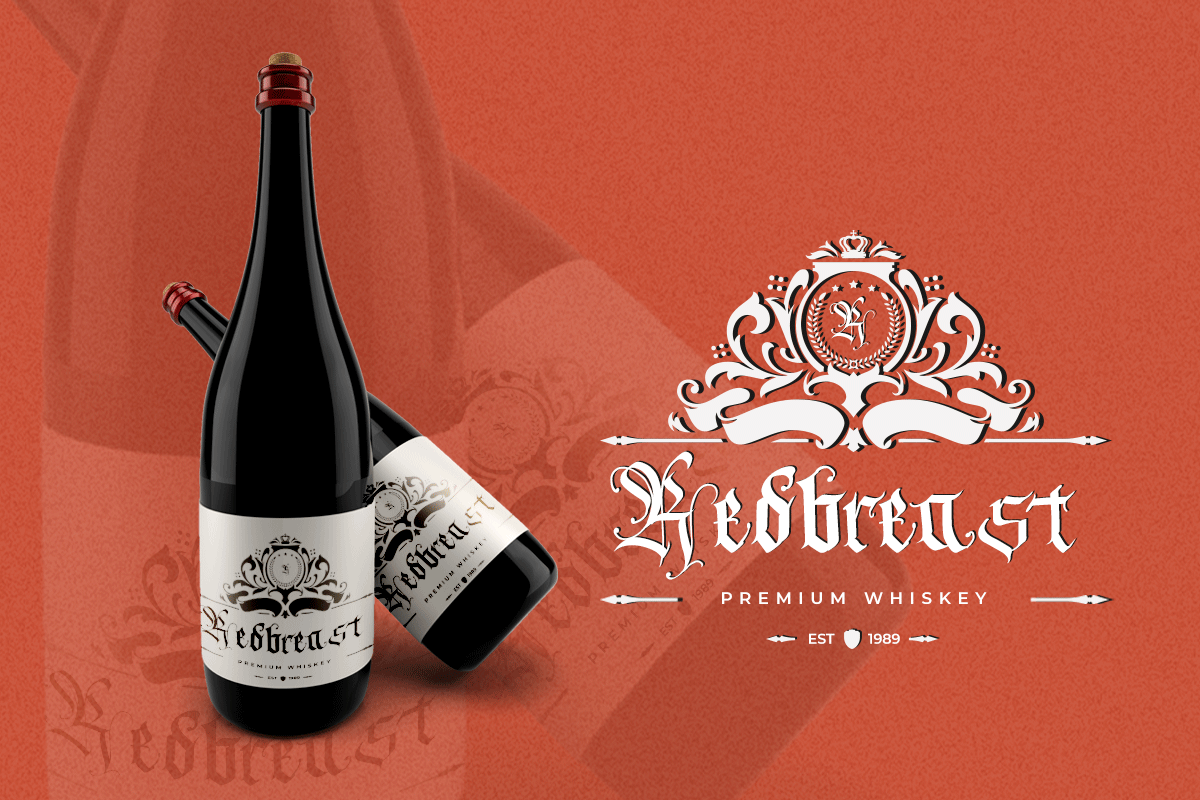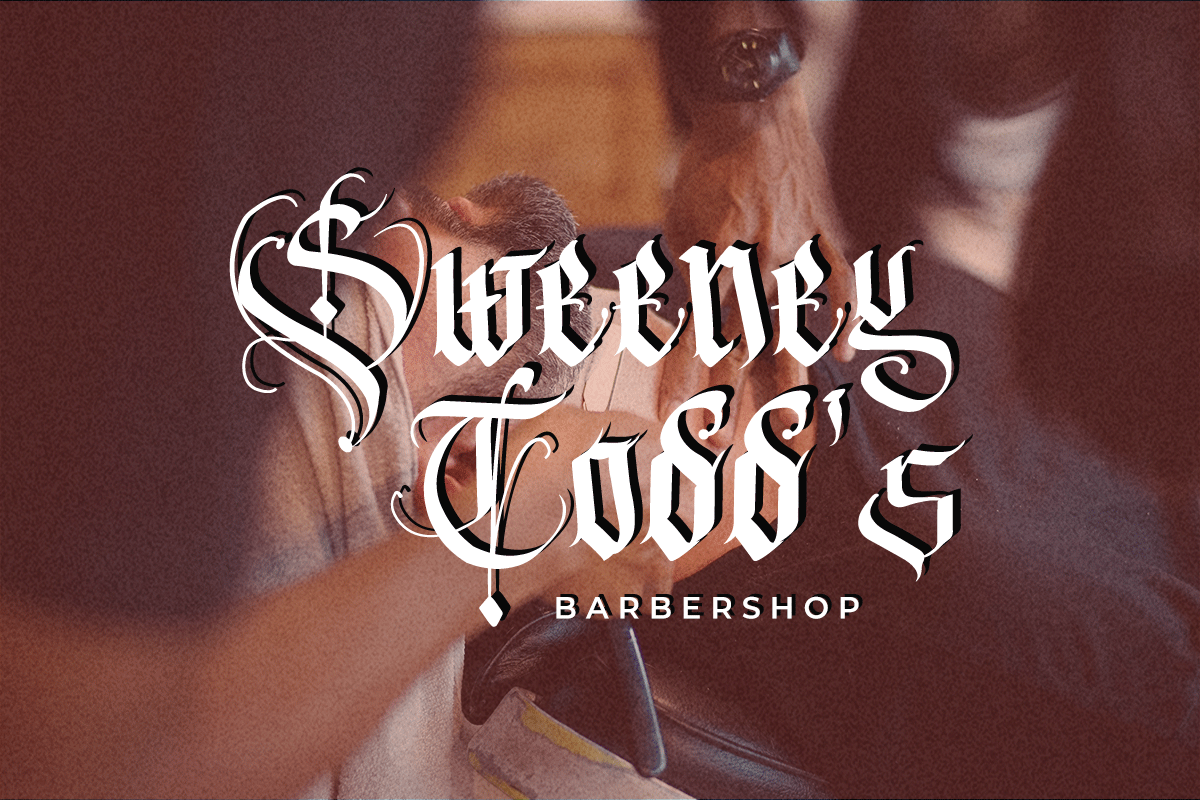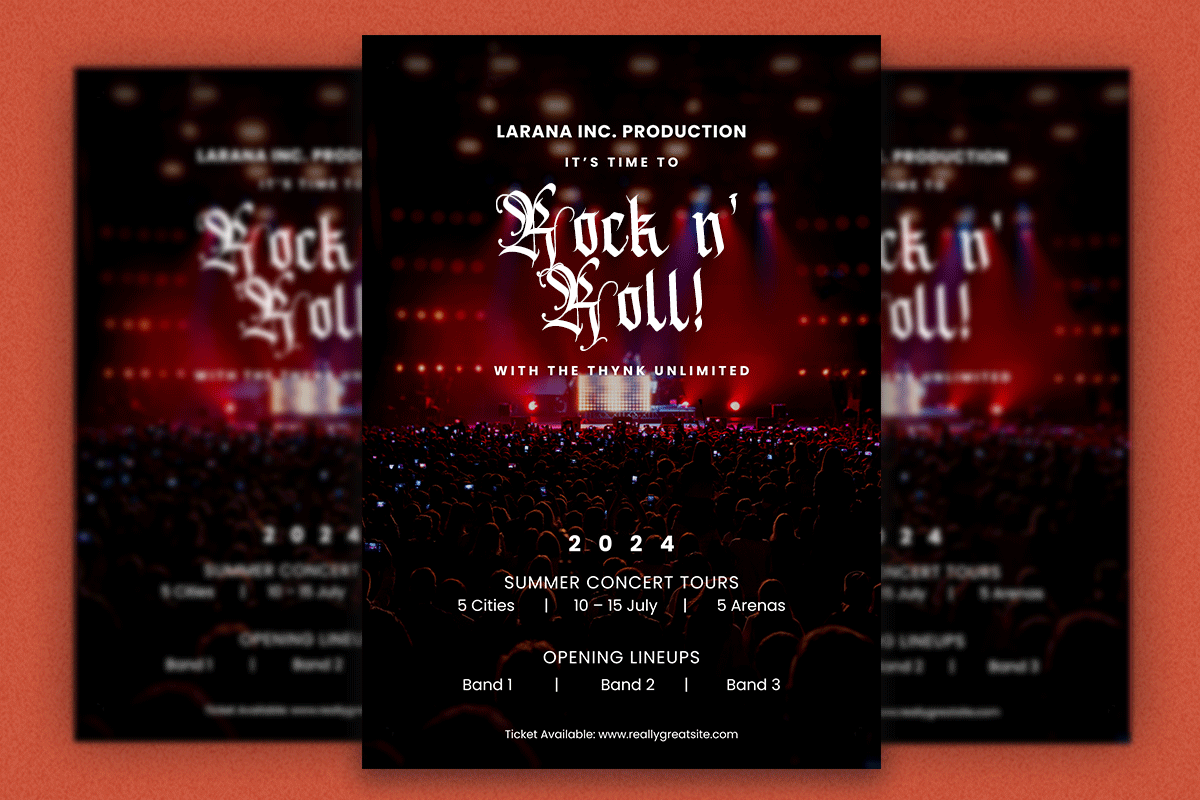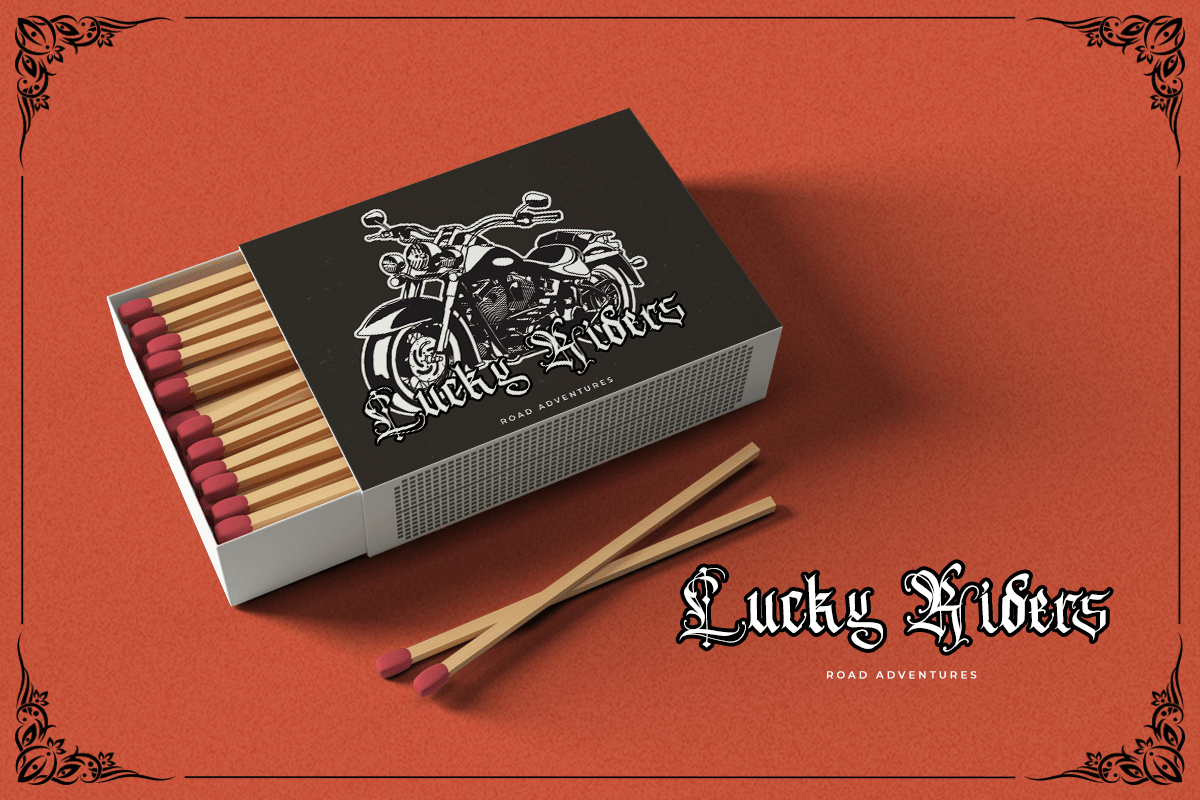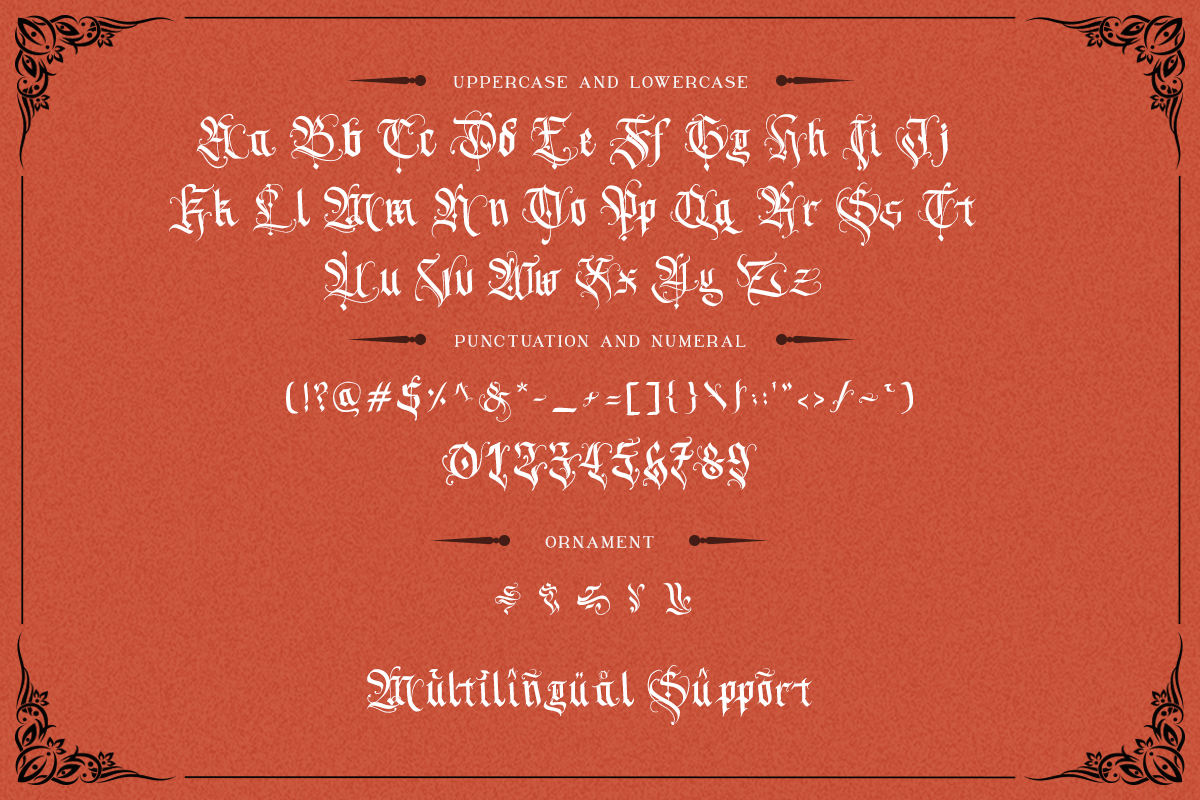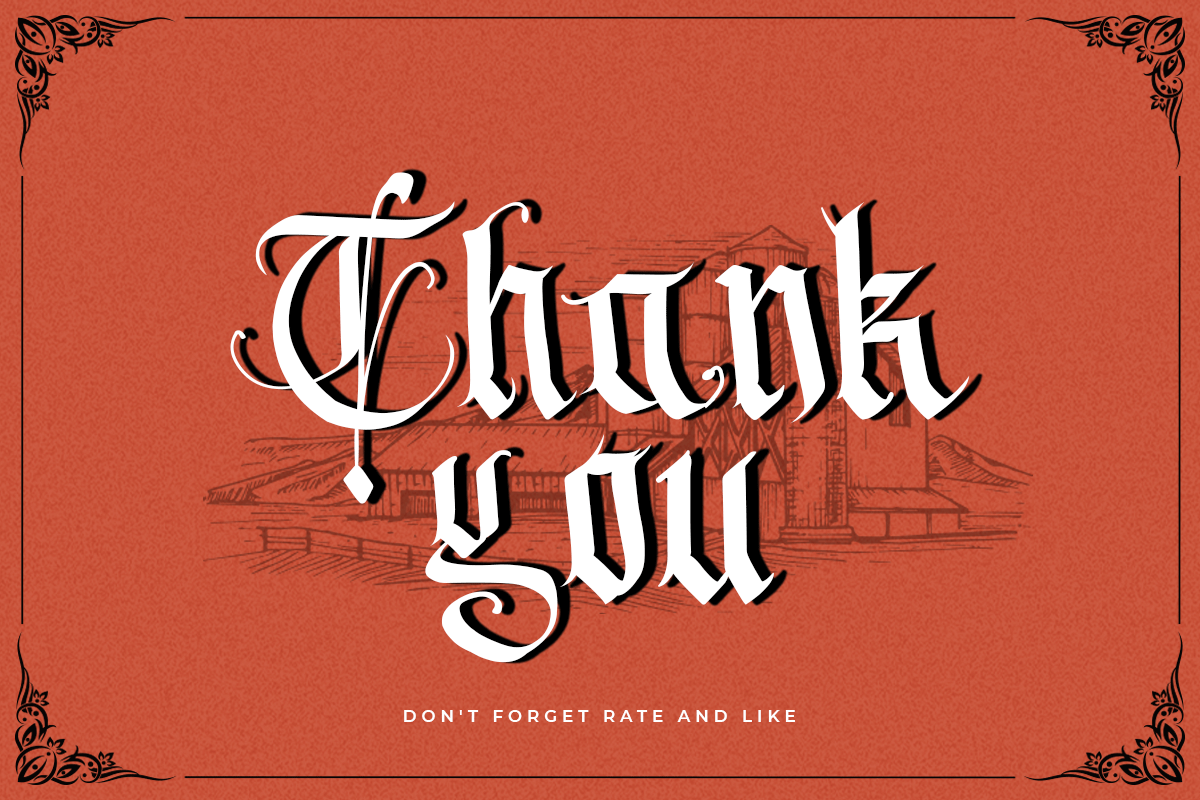
Blackhorse Blackletter Font After making many typefaces, Font Kong is back with a new type of font called Blackhorse Blackletter font. Judging from all sides, such as the shape and impression it causes, this font is part of the Blackletter modern font. This font is made with inspiration from Middle East calligraphy art. Blackhorse Blackletter Font is here to bring a new color to the world of blackletter. Blackhorse Blackletter Font was made to add a wide selection of ready online fonts to use digitally and in print. Blackhorse Blackletter Font has a shape that shows that it is part of the Middle Eastern Blackletter, which was inspired just by looking at it. If you pay close attention, you can feel the significant influence of Middle Eastern calligraphy art in the form of this font. Blackhorse Blackletter Font has overall characteristics where the font is made from many sharp, thick, and thin lines. This font is branching with curved lines and small circles at the end. All design elements create a symbolic structure and meaning instead of a representation of naturalistic ideas. From this explanation, we can understand that this font is not only part of the Font Blackletter family but is also included in the display and decorative font category. Blackhorse Blackletter font is not designed for use in large text or with large font sizes. Because seeing its quite complicated shape, it includes an eligible font. Apart from how easy/difficult the font is to read, we can imagine how this font matches various equipment. Blackhorse Blackletter font is one of the best fonts for use on frightening products and mystery themes. This font also functions when used to create a horror movie poster, and a horror-themed party or used on behalf of several metal bands and their album cover. Not only that, but the Blackhorse Blackletter font can also be combined as its trademarks, such as T-shirts, jackets, and denim pants. Blackhorse Blackletter Fonts are fonts that are also suitable for product branding. This font can use as a product brand and product ad. A chaotic form of fonts demands readers to pay attention and extra focus at this time. However, this chaotic energy is the characteristic and identity of this artistic font. When typed in dark colors, this font creates a stunning gothic atmosphere. Seeing the compatibilities of the font, it is hoped that the presence of the Blackhorse Blackletter font can answer your confusion to have the most appropriate fonts. For your social media needs, you can use and install fonts in our font Blackletter collection to be used as Instagram fonts, Facebook fonts, and Twitter fonts. Like this font application, you can use it in several applications, such as Figma Font, Canva Font, Freepik Font, Adobe Font, Google Font, Instagram Font, and Social Media font.